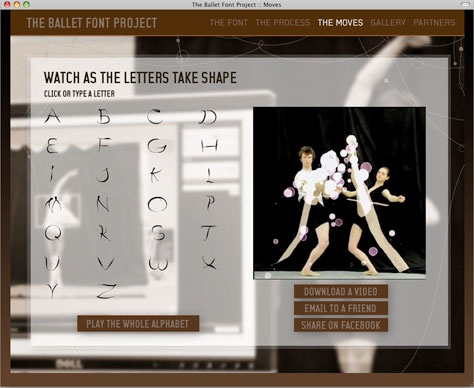
The Ballet Font Project
Two dancers were outfitted with infrared lights and their movements filmed as they executed the 26 letters of the alphabet. Now you can download the resulting font for free.
The idea of a font based on motion capture is not new; for example, a year ago, Toyota hired two graphic designers to create a typeface based on the movements of the Toyota iQ car. But Oregon Ballet Theatre, FashionBuddha, and W+K12 have joined together to put their own spin on the idea. The result is Ligne, an alphabet with glyphs formed by the bodies of two ballet dancers.
According to the Ballet Font Project website, the "dancers were fitted with infrared lights, which captured their steps in real time as they danced all 26 letters of the alphabet. The dancers' performance was filmed using an HD video camera and a camera with an infrared filter. Using custom software, the infrared light traced the dancer's movements over the top of the HD video in real time. A second application evaluated the movements and converted the points and lines into a usable TrueType font".
The website, shown in a screen capture below, is well worth a visit to download the Ligne font and find out more about the project.